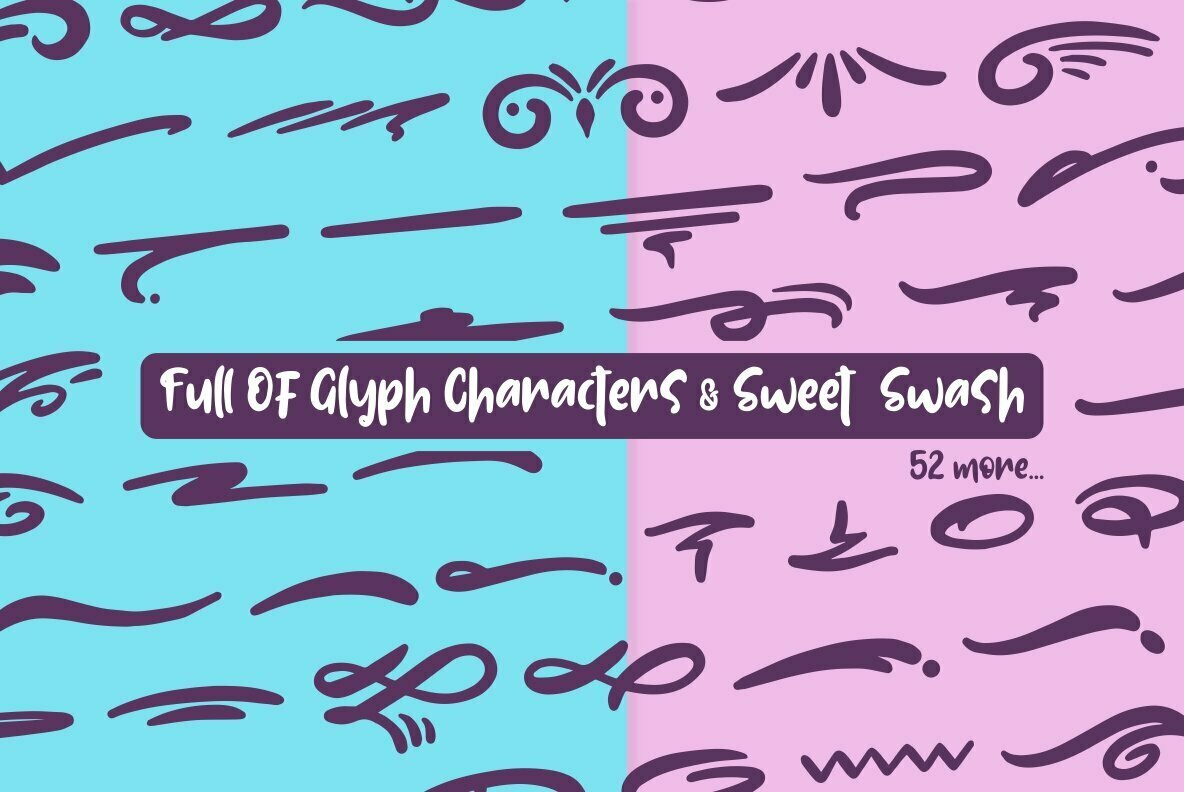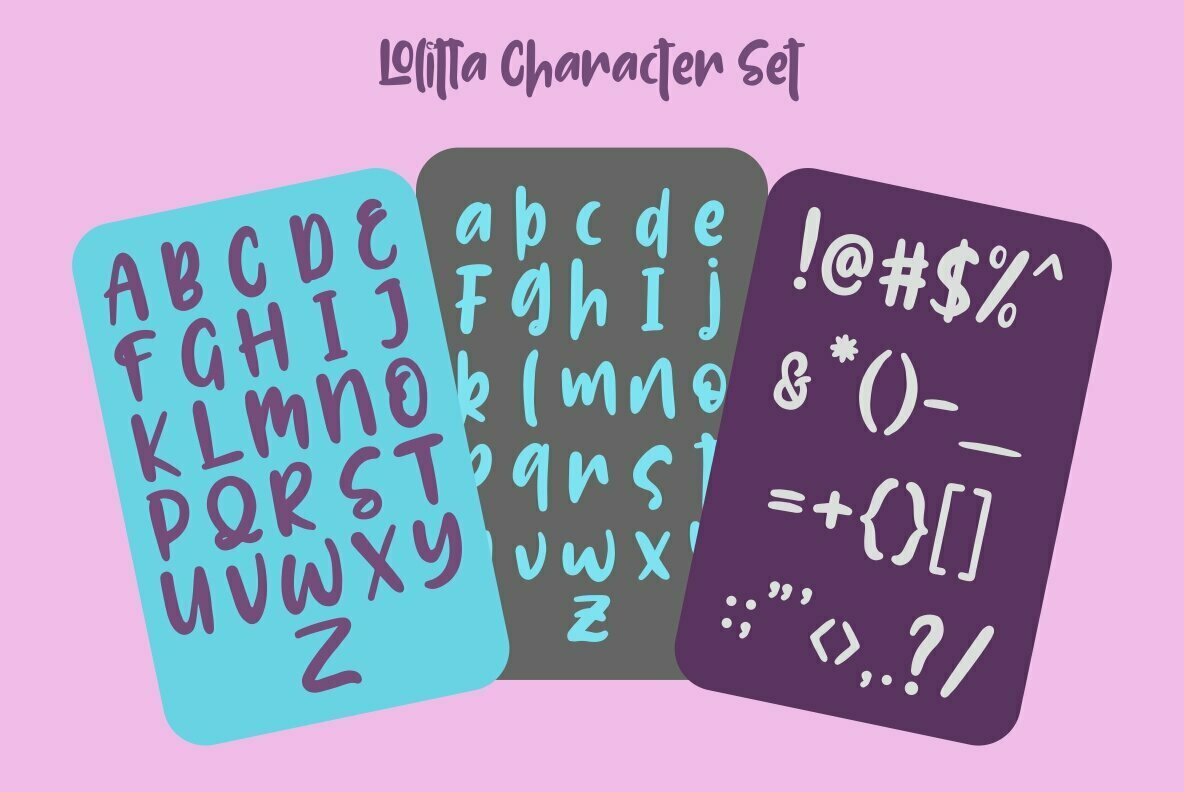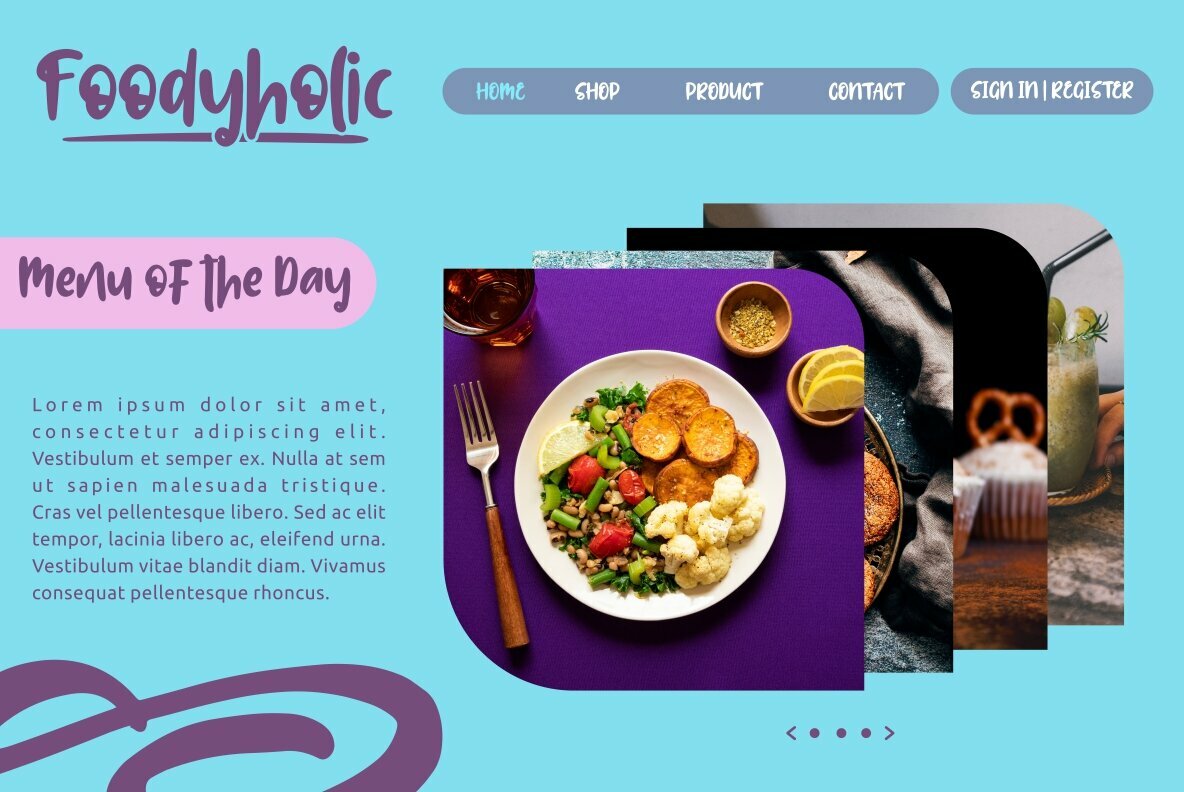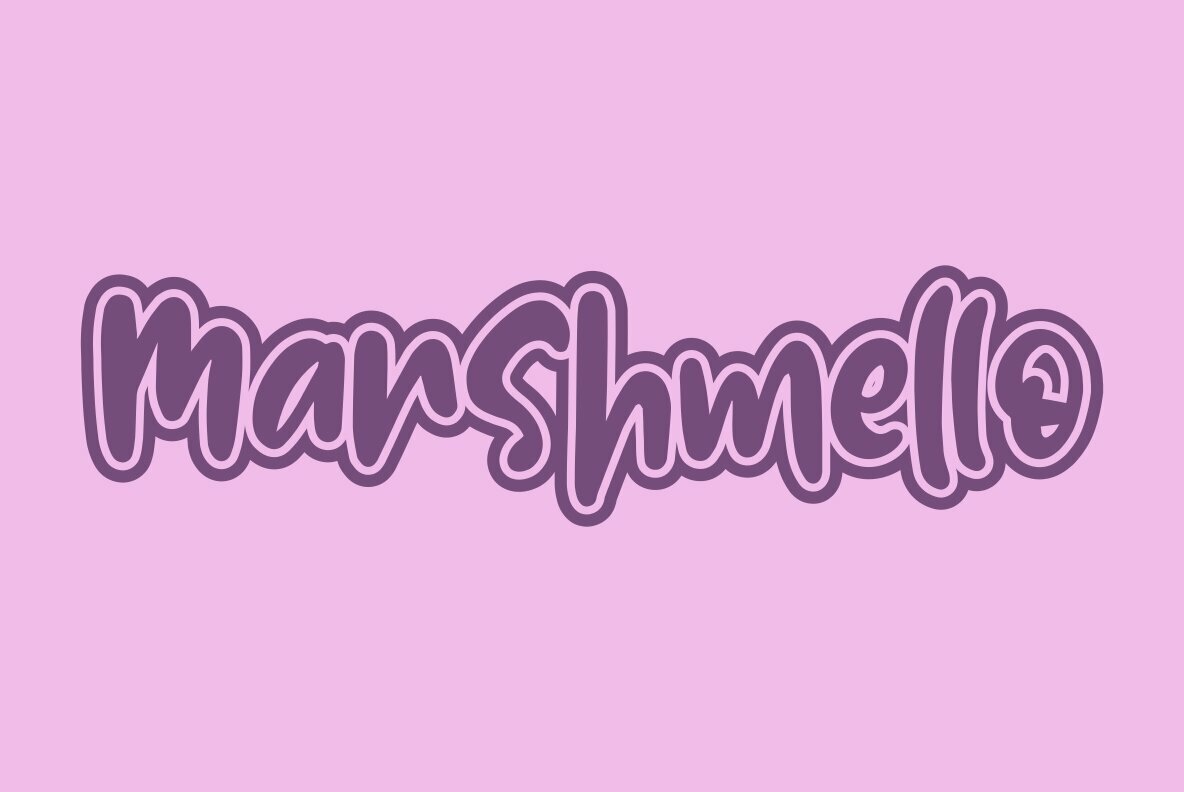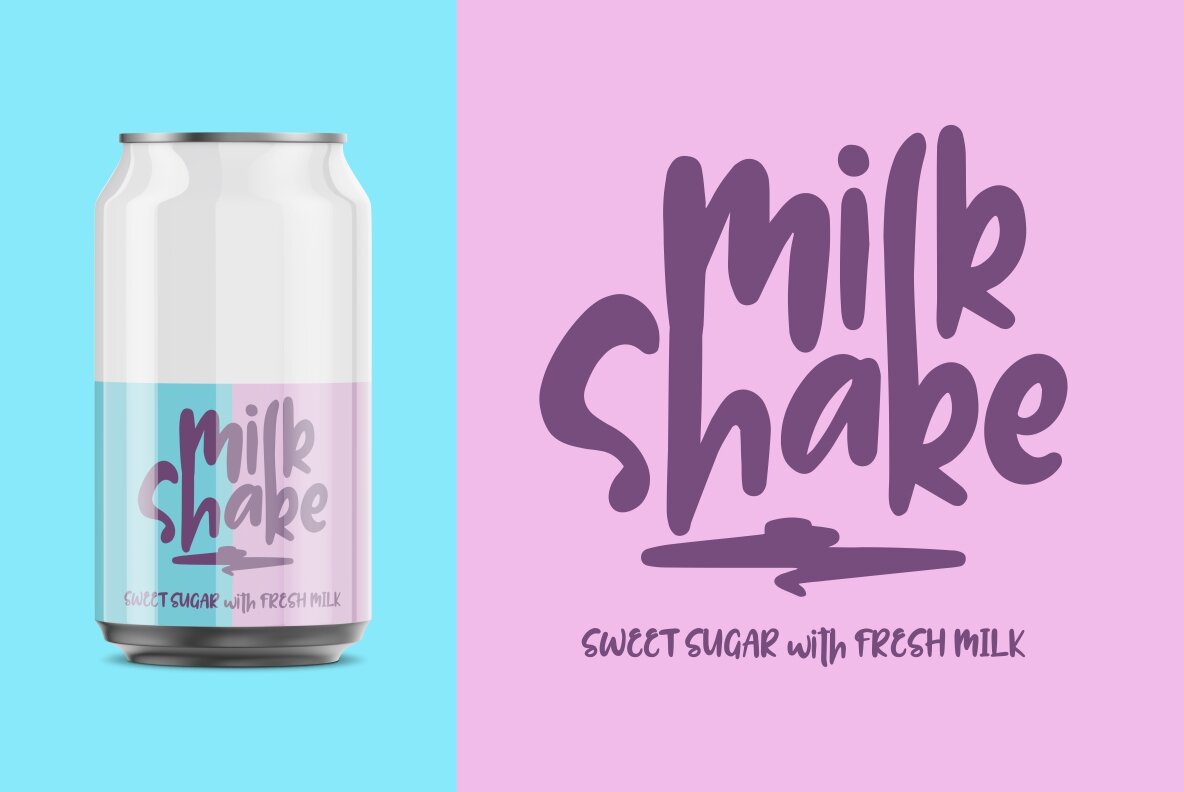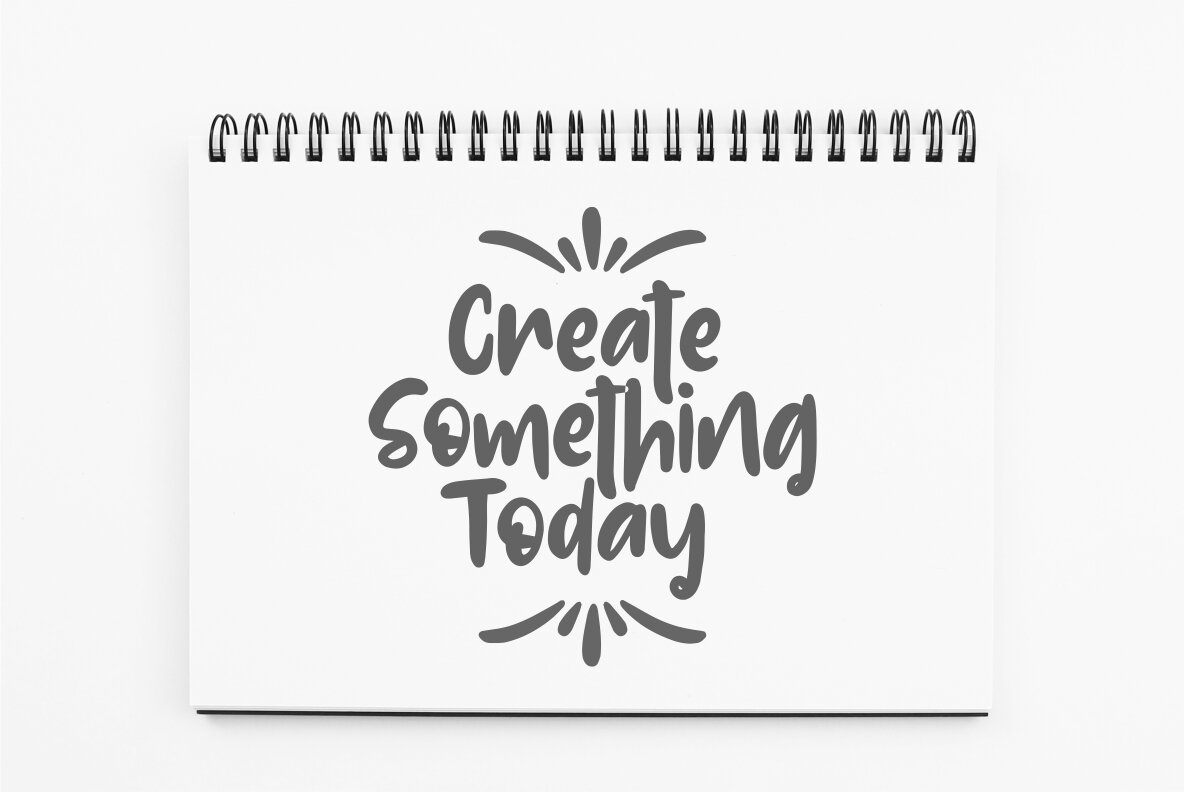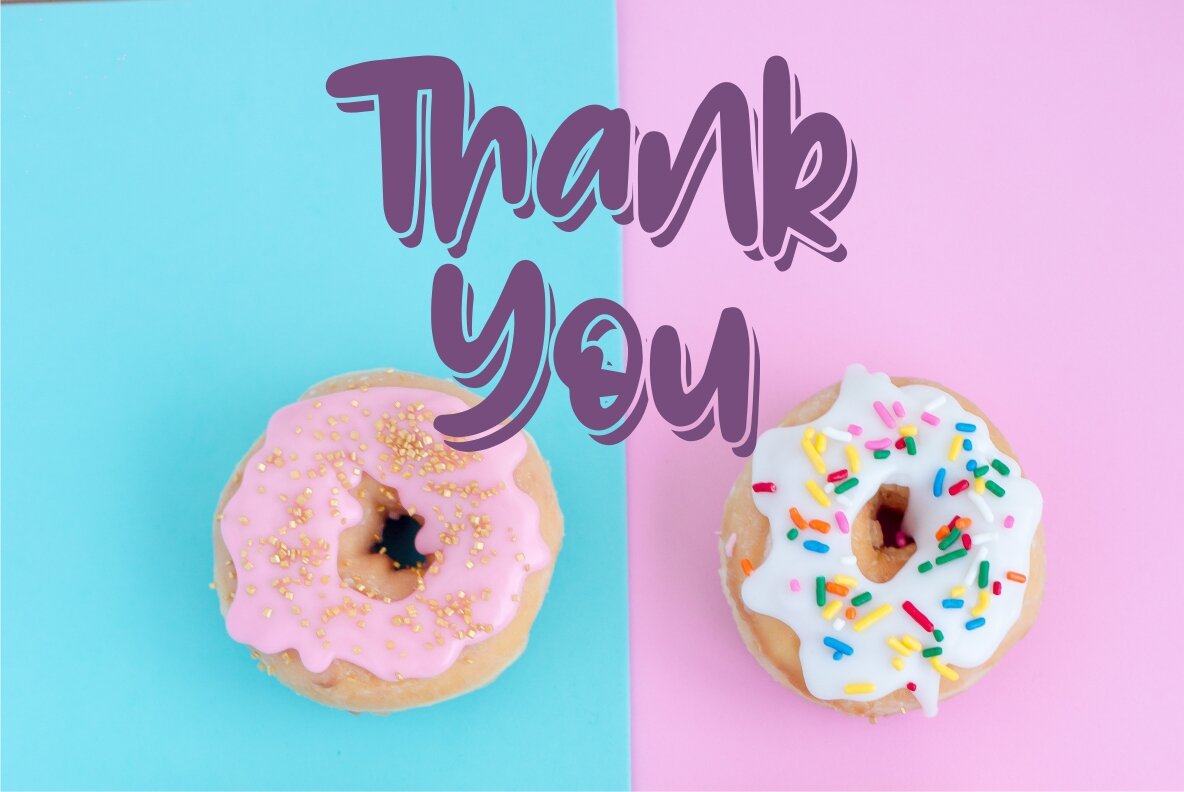
Lolitta: A Bold Display Font That Radiates Joy
Lolitta stands out with its bold, entertaining spirit. This display font exudes vibrancy and playfulness, capturing the essence of a lively marker style. Ideal for creating impactful display, text, print, and branding designs, Lolitta infuses any project with joyous energy, ensuring your message is always engaging and memorable.
• Bold Character – Striking and attention-grabbing style.
• Diverse Applications – Perfect for branding, signage, and layouts.
• Lolitta Swash – A complementary decorative style.
• Multilingual Support – Includes English, French, Albanian, and more.